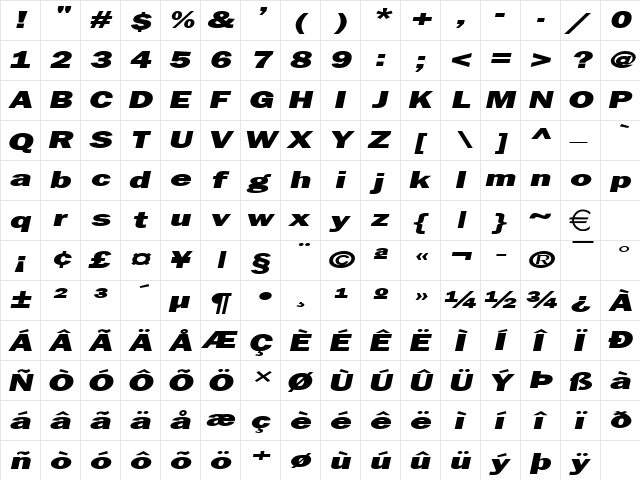
FrancisGothicExtended Italic
Design Context for FrancisGothicExtended Typeface
FrancisGothicExtended has the quiet confidence of well-executed sans-serif typography: versatile, unobtrusive, and dependable at any size. The dynamic lean of this cut emphasises speed and emphasis in any layout.
Font Pairing: Works well alongside a characterful serif or display font that can carry the expressive load while FrancisGothicExtended handles the functional copy.
Pro Tip: Pair FrancisGothicExtended with a display or serif font for headlines — its neutral character makes it an excellent supporting player in complex typographic systems.